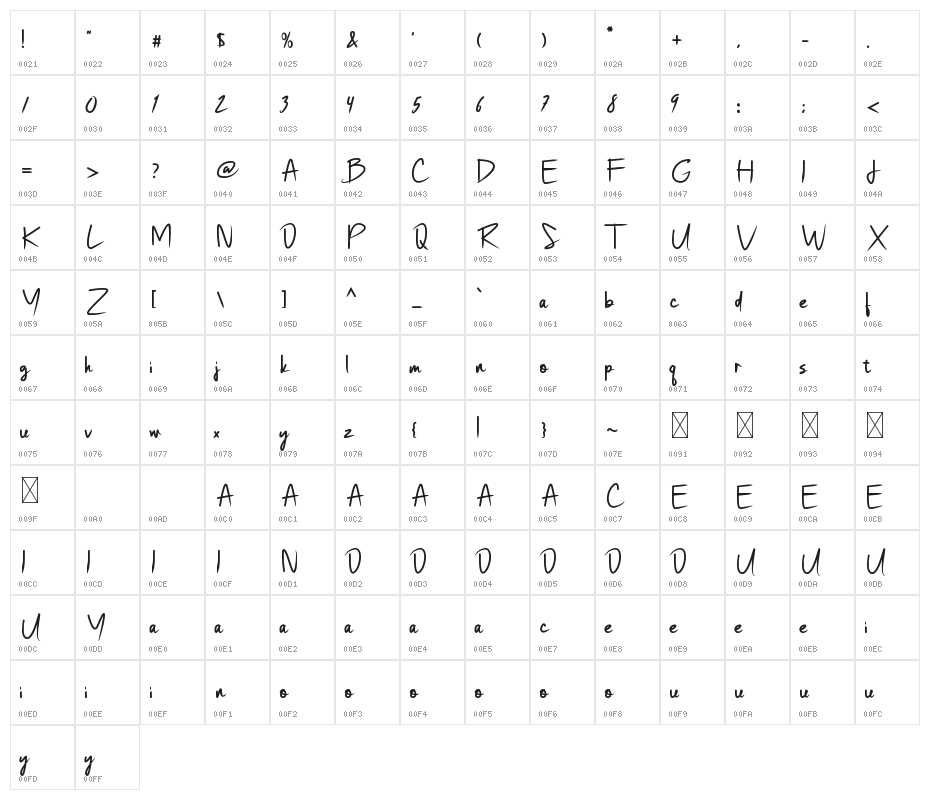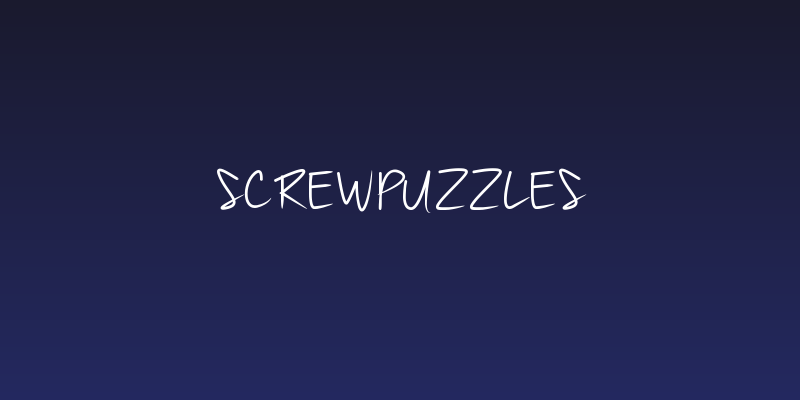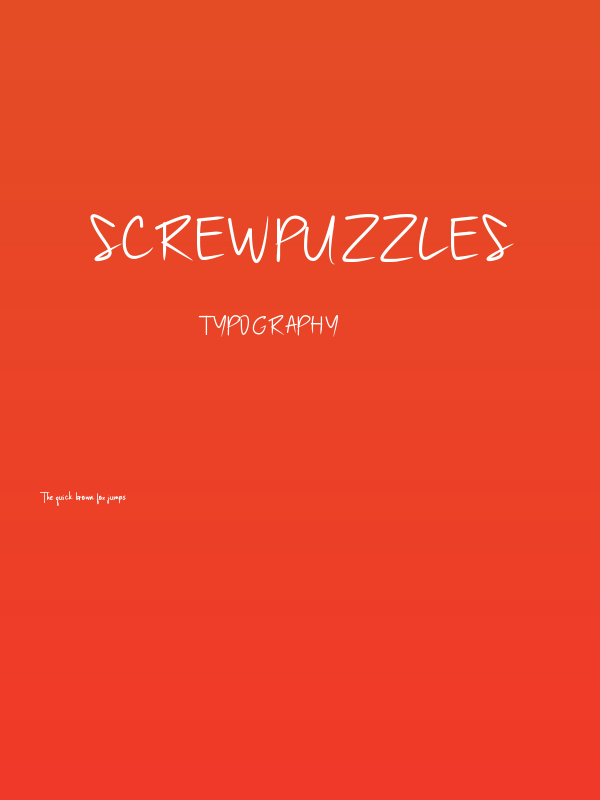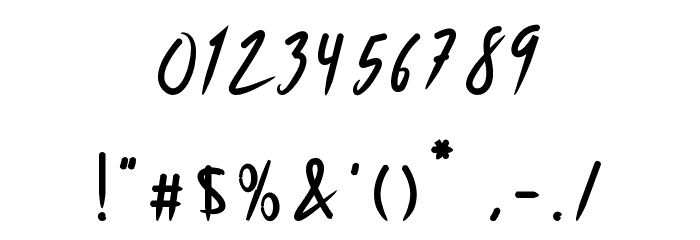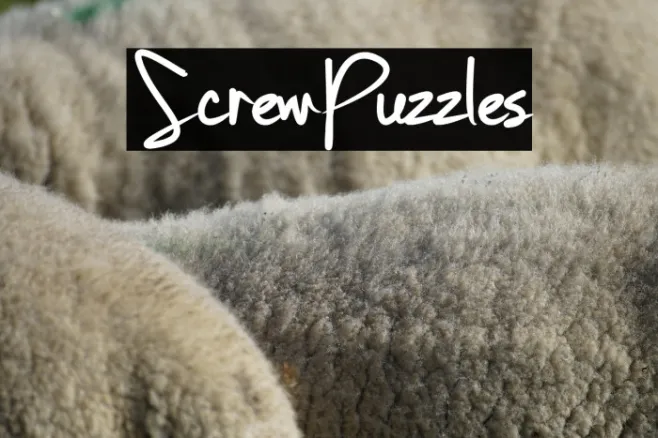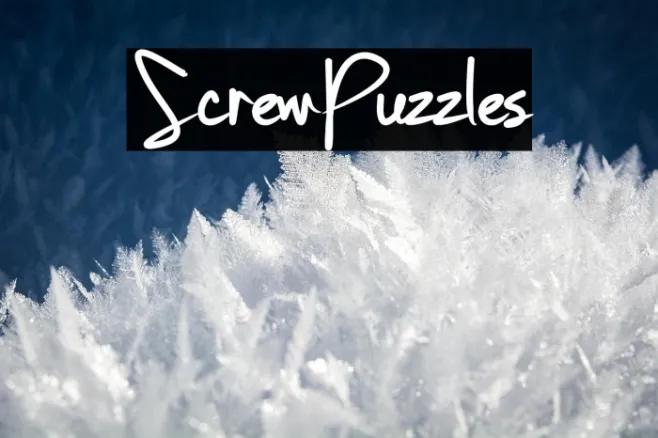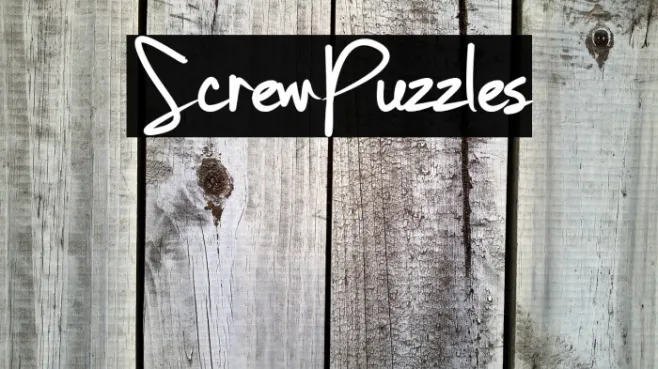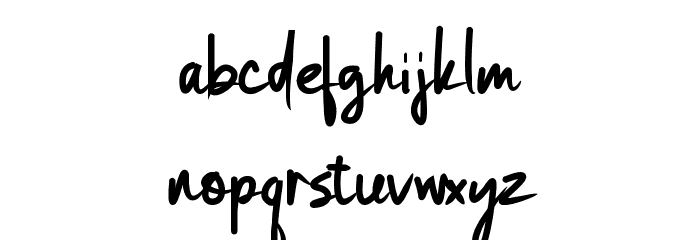
ScrewPuzzles Font
ScrewPuzzles Description
This font features a playful and dynamic handwritten style, characterized by its irregular strokes and casual appearance. The uppercase letters are tall and slightly narrow, with a whimsical flair that adds personality to each character. The lowercase letters maintain a consistent flow, enhancing the font's overall informal and friendly vibe. Numbers and special characters are crafted with the same lively touch, making them suitable for creative and expressive designs. The font's unique style is perfect for projects that require a personal and approachable feel.
| Use Case | Headlines, Logos, Informal Invitations |
| Proposed Projects | Ideal for greeting cards, children's books, playful branding, and creative social media graphics. |